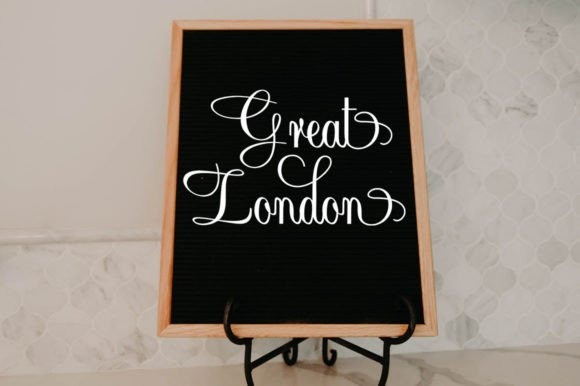
America Calligraphy Font
America Script Font is a new modern script calligraphy font with an irregular baseline. Trendy and feminine style. America looks lovely on wedding invitations, thank you cards, quotes, greeting cards, logos, business cards, and more.